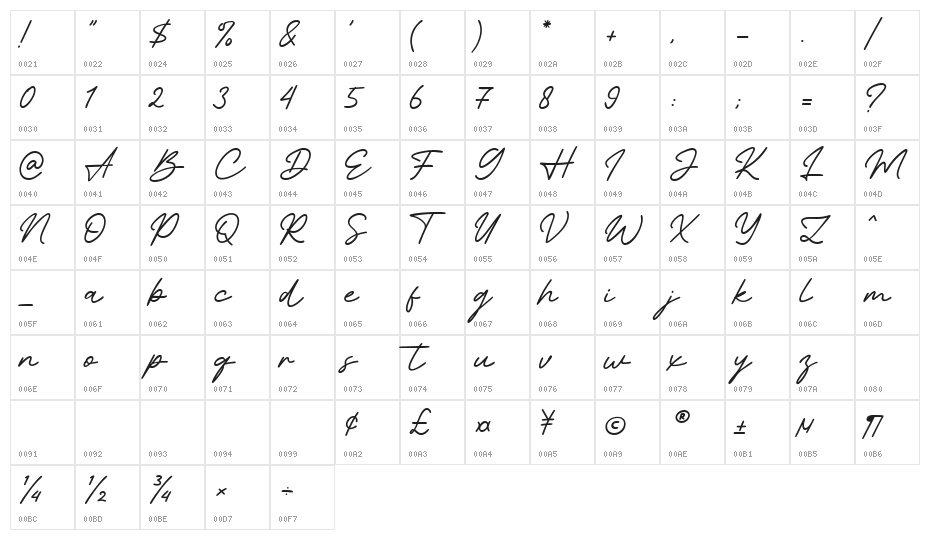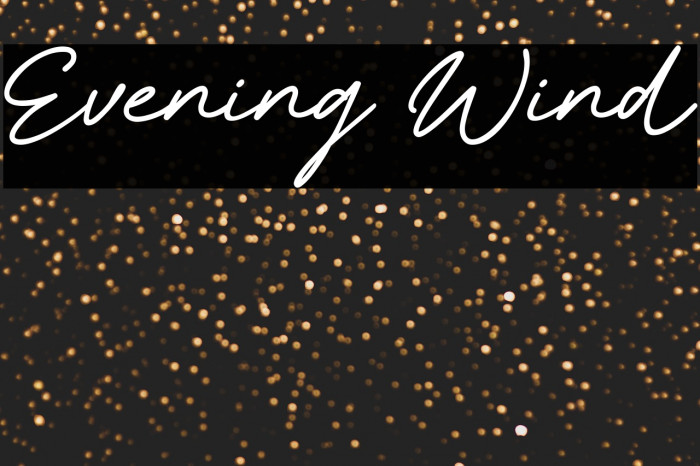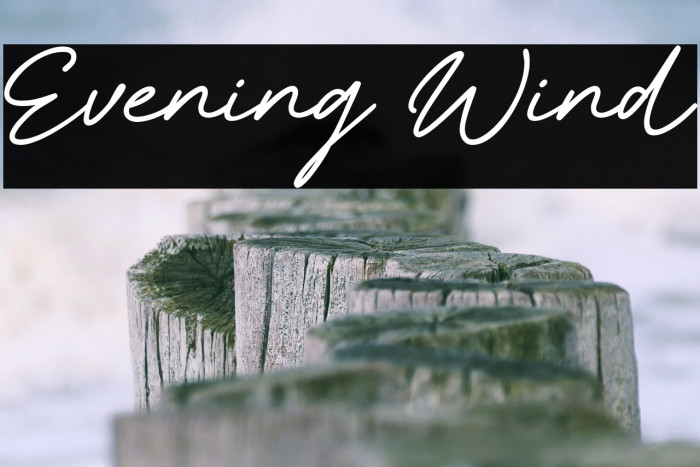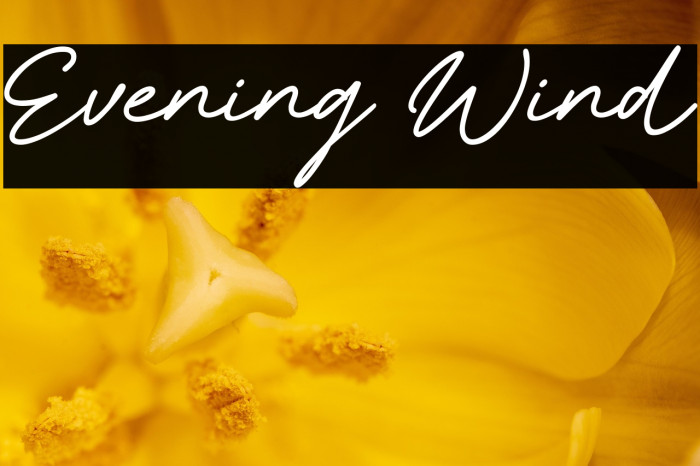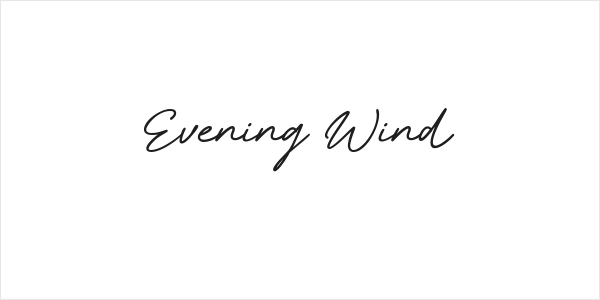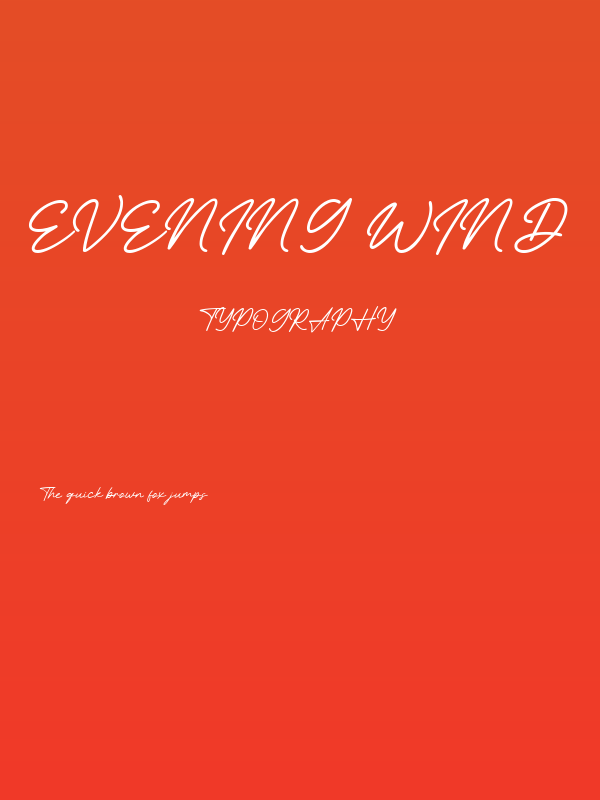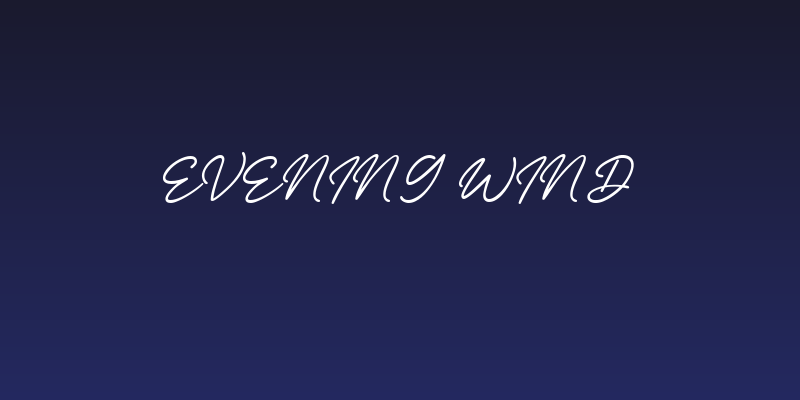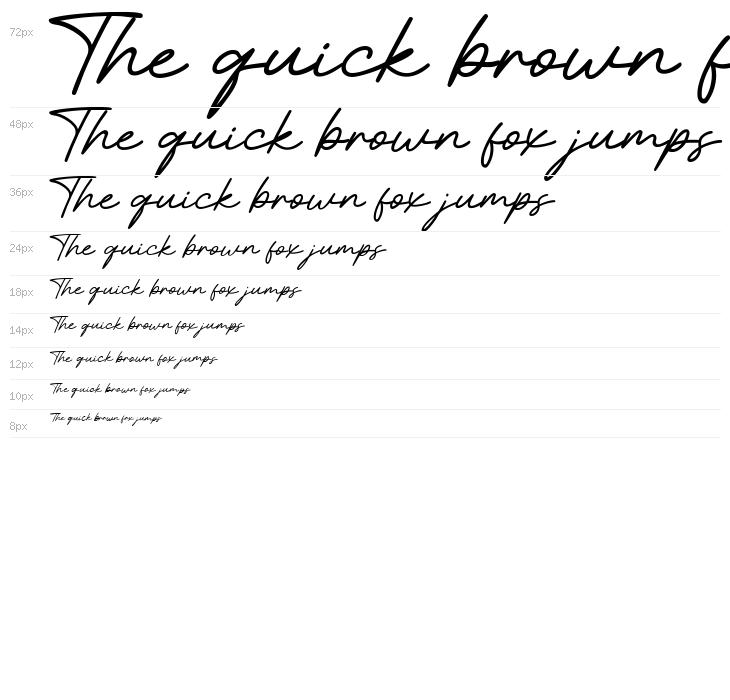
Evening Wind Font
Evening Wind Description
This elegant script font features a flowing, cursive style that mimics natural handwriting. The characters are connected, creating a seamless and fluid appearance. The uppercase letters are slightly more ornate, with flourishes that add a touch of sophistication. The lowercase letters maintain a consistent flow, enhancing readability while preserving the font's artistic flair. Numbers and special characters are designed to match the overall style, ensuring a cohesive look across all text elements. This font is ideal for projects that require a personal, yet polished touch.
Overall StyleElegant
Use CaseLogos, Invitations, Personal Branding
Proposed ProjectsIdeal for wedding invitations, greeting cards, personal branding, and elegant packaging designs.